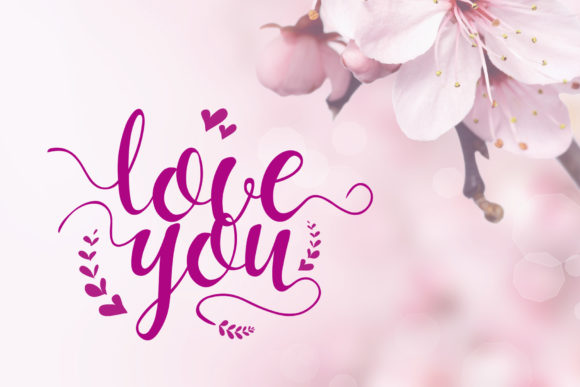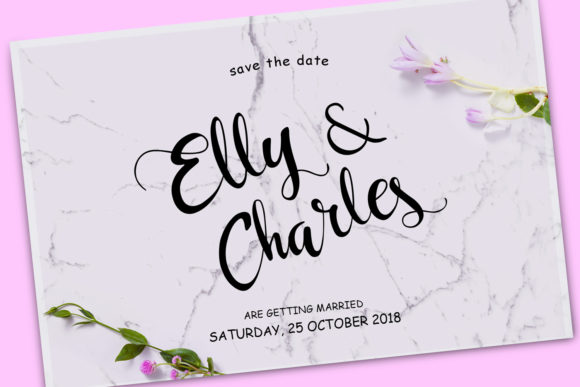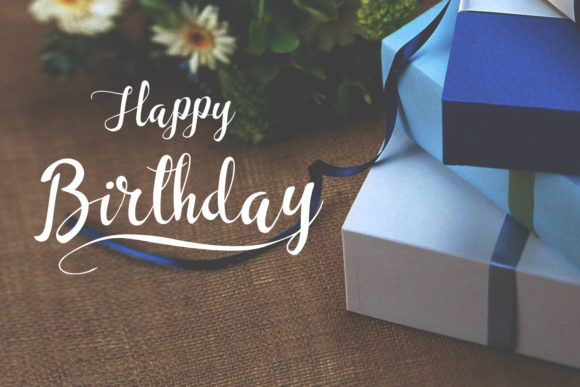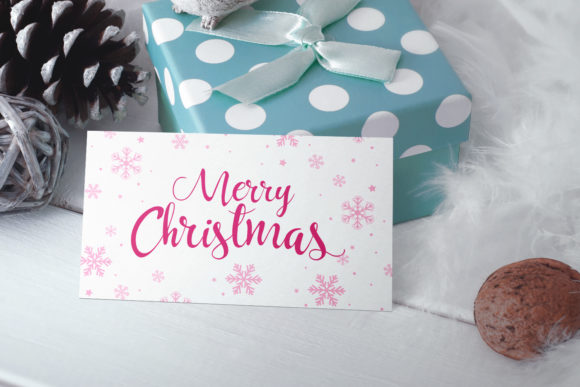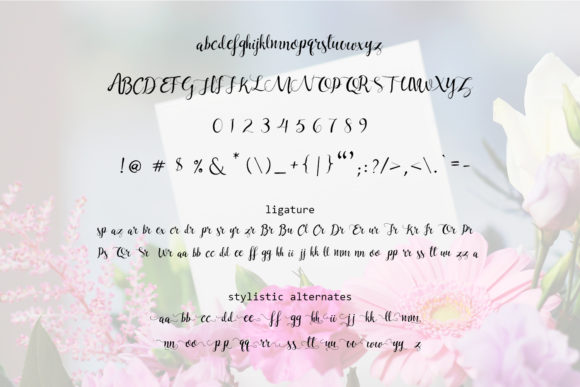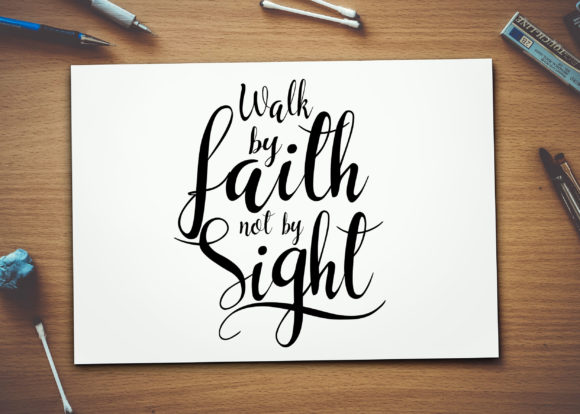
The Enchanting Carmilla Font: A Designer’s Dream Come True
I’ll never forget the time I was working on a wedding invitation project, and my client asked for a font that was both elegant and modern. I scoured the internet, tried out countless fonts, but nothing seemed quite right. That was until I stumbled upon the stunning Carmilla font. This beautiful, modern calligraphy font has been a game-changer for my designs, and I’m excited to share its magic with you! ✨
So, what makes the Carmilla font so special? Let’s dive into the details!
• ✨ Elegant and Modern: The Carmilla font boasts a sleek, contemporary look that’s perfect for wedding invites, branding materials, business cards, and quotes.
• ✅ Hand-Lettered Script: This font is carefully crafted with a personal touch, giving it a unique and authentic feel.
• 💫 Versatile: Whether you’re designing for digital or print, Carmilla adapts seamlessly to various mediums.
Of course, no font is perfect, and Carmilla has a few minor quirks:
• 🤔 Limited Ligatures: While Carmilla has some beautiful ligatures, it doesn’t have an extensive range. This might be a minor issue for some users.
• ⚠️ Not Suitable for Body Text: Due to its elegant, cursive nature, Carmilla is best used for headlines, titles, or short paragraphs. It might not be the best choice for lengthy body text.
The Story Behind Carmilla: Designer Inspiration
What makes Carmilla a great choice for wedding invitations? Carmilla’s elegant and modern design makes it perfect for wedding invitations, adding a touch of sophistication and romance to your special day.
Is Carmilla a difficult font to read? No, Carmilla is designed to be legible, making it easy to read in various contexts, from titles to short paragraphs.